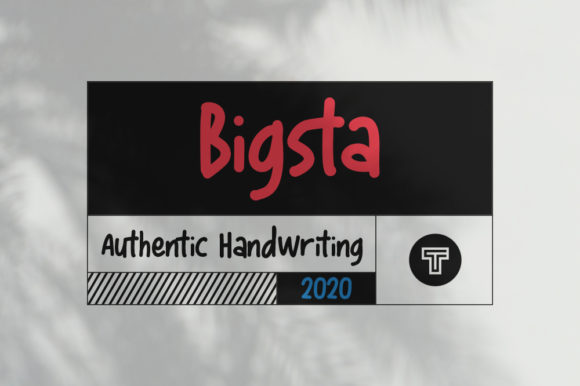
The Bigsta Font: A Modern Handwritten Marvel
I’ll never forget the design struggle I faced while working on a project for a trendy boutique client. I was tasked with creating an eye-catching logo that would stand out on their social media platforms, but I was stuck on finding the perfect font. That’s when I stumbled upon the Bigsta font, and it instantly became my go-to choice. In this article, I’ll share my love for this casual and modern handwritten font, its features, and how to make the most of it in your designs.
What I Love About Bigsta Font
Bigsta is a versatile font that will look outstanding in any context, whether it’s being used on busy backgrounds or as a standalone headline. Here are some things I love about it:
• ✨ Unique and modern feel: Bigsta has a fresh and contemporary look that will instantly elevate your designs.
• ✅ Highly legible: Despite its casual nature, Bigsta is surprisingly easy to read, making it perfect for body text and headlines.
• 💡 OpenType features: Bigsta comes with a range of OpenType features, including glyphs and stylistic alternates, which allow you to customize your text and add an extra layer of creativity to your designs.
While Bigsta is an amazing font, it’s not perfect. Here are a few quirks to keep in mind:
• 🤔 Limited use on small sizes: Bigsta is best used on larger text sizes (18pt and above). On smaller sizes, it may lose some of its charm and become harder to read.
• ⚠️ Not ideal for body text: While Bigsta is legible, it’s still a display font at heart. For longer blocks of text, you may want to pair it with a more traditional body font.
The Story Behind Bigsta Font
Bigsta was designed by a talented type designer who wanted to create a modern, handwritten font that would stand out in any design. The font was inspired by the designer’s love of casual, conversational typography and was crafted to be both elegant and approachable. Today, Bigsta is a popular choice among designers and crafters who want to add a touch of personality to their work.
What is Bigsta font best used for? Bigsta is best used for headlines, titles, and short blocks of text where you want to add a touch of personality to your design.